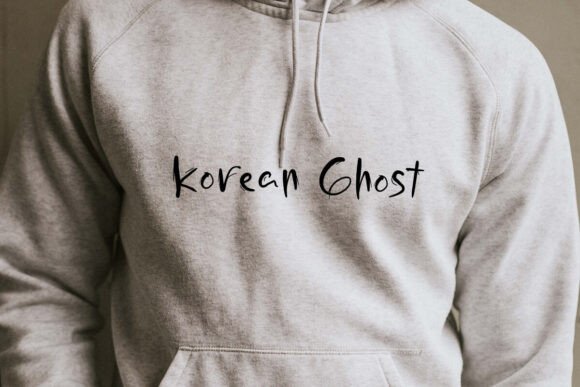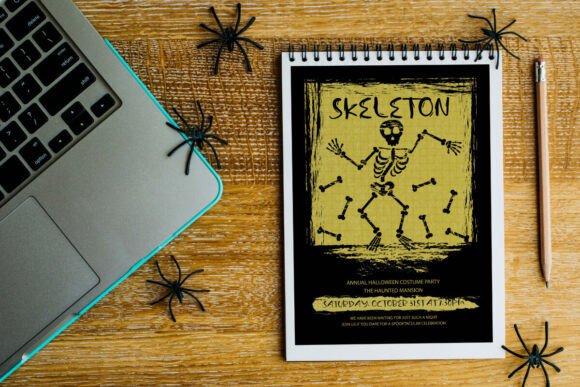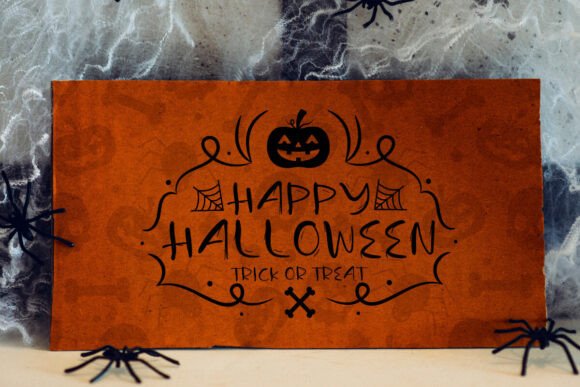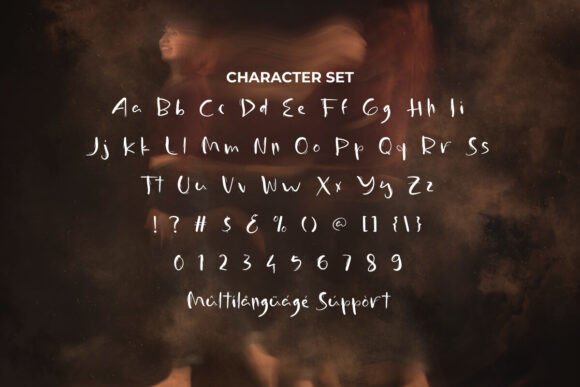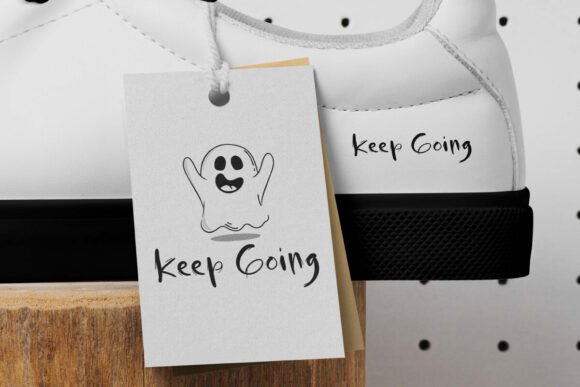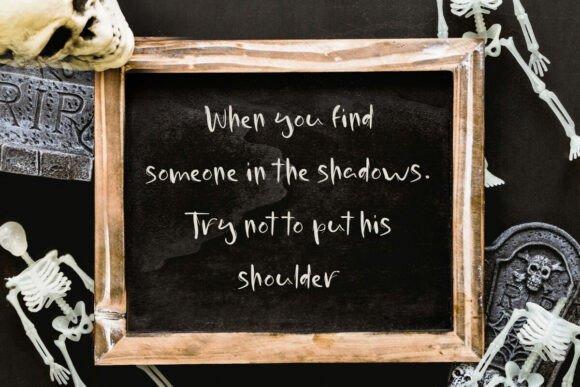
Introduction to Korean Ghost Font
Korean Ghost Font is a horror display font.
If you have plans to make a design with a spooky theme, you can use this font to show its witchery It will be good for any design, such as advertisement, brand images, covers, custom designs, greeting cards, invitations, magazines, menus, poster, product packaging, quotes, web pages, and more.
Key Features of Korean Ghost Font